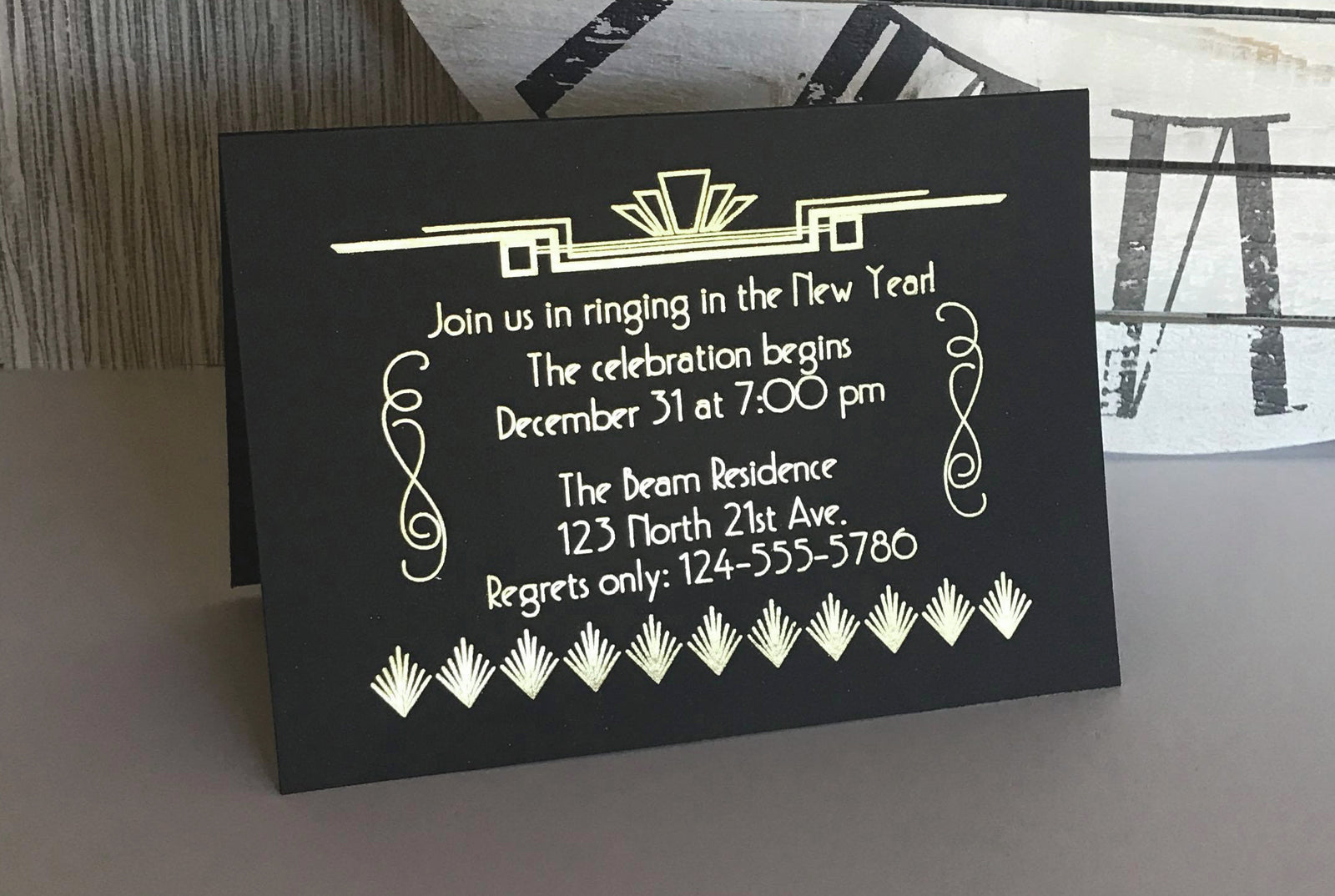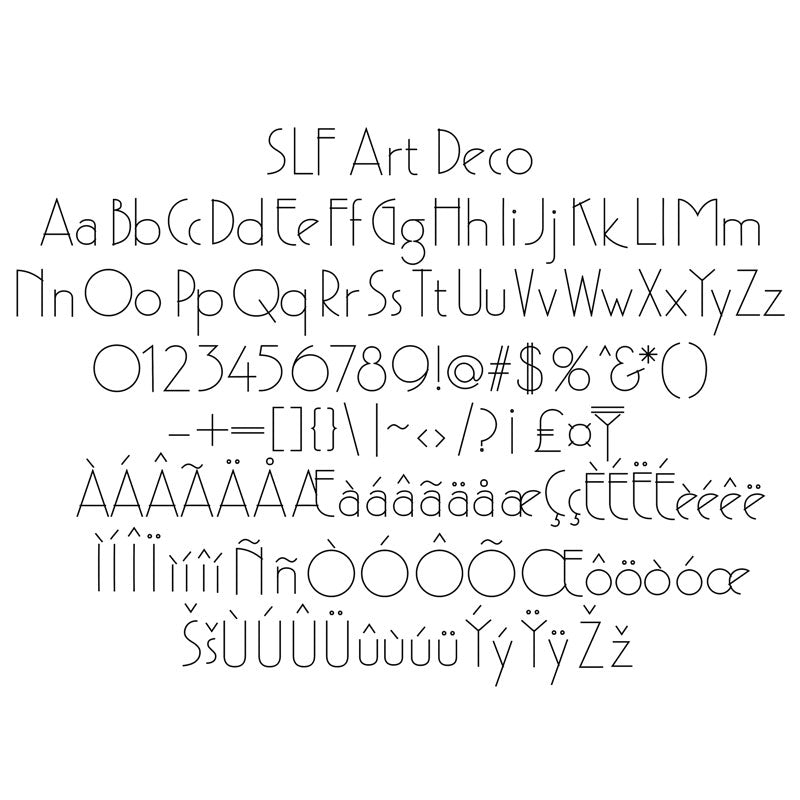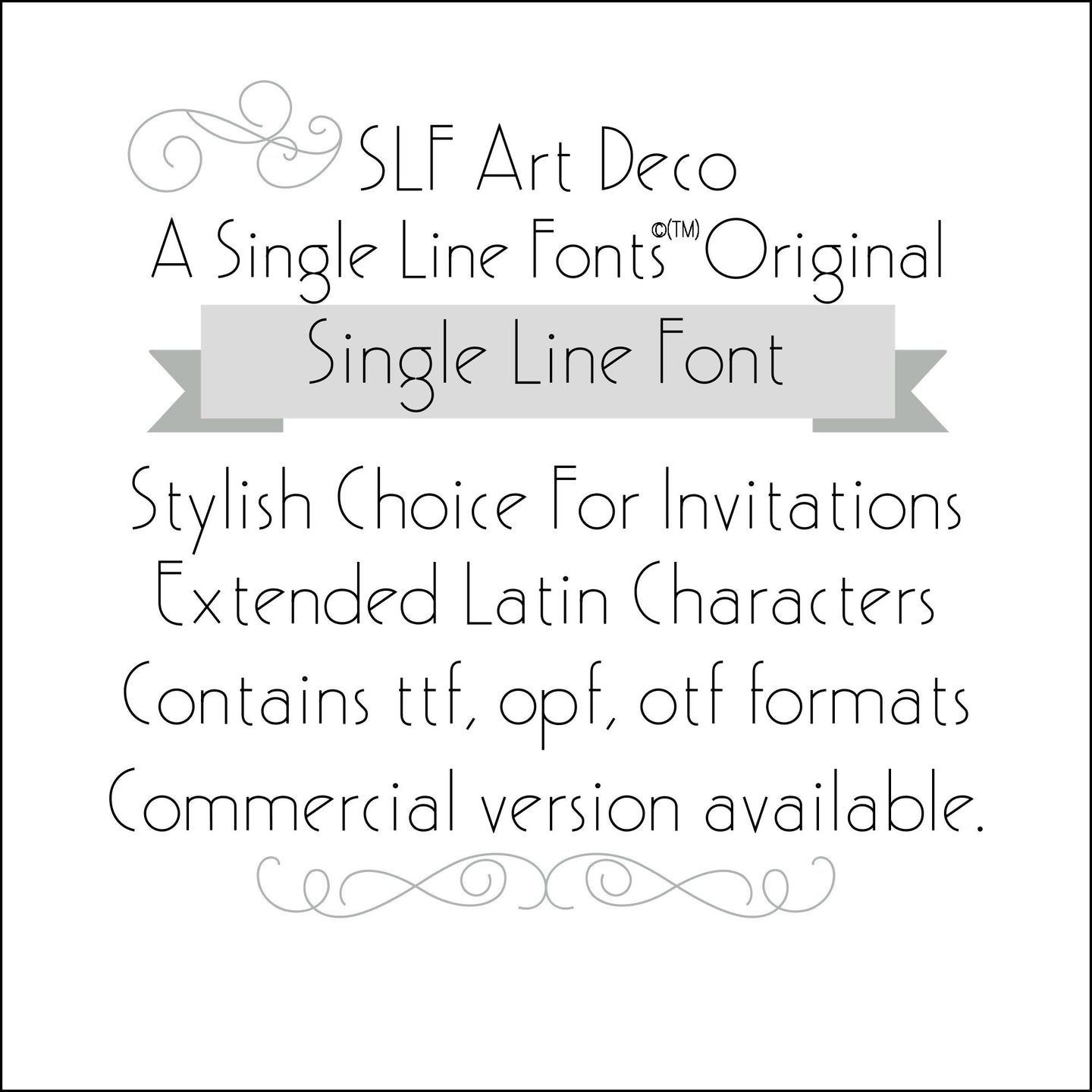
SLF Art Deco
Quality and attention to detail are the hallmarks of every Single Line Font creation, and SLF Art Deco is no exception. With a tasteful and stylish feel, this Gatsby-style typeface is the perfect choice for party and event invitations. Use as your formal wedding choice for Save The Date cards, invitations, place cards, envelopes, and programs.
The inspiration for this font came when I saw an ad in my email. It was in a similar style, against black, and the lettering was done in gold fleck (with a thicker font). It was stunning. I could not wait to recreate the look of that font in my hairline style, and a few months later, I am publishing it now for you to enjoy.
Dress up New Year’s Eve invitations as well as winter formal events. Embellish gift tags to set off your packages with flair. Whatever the occasion, SLF Art Deco will be your new go-to font the next time you need a unique, distinctive style.